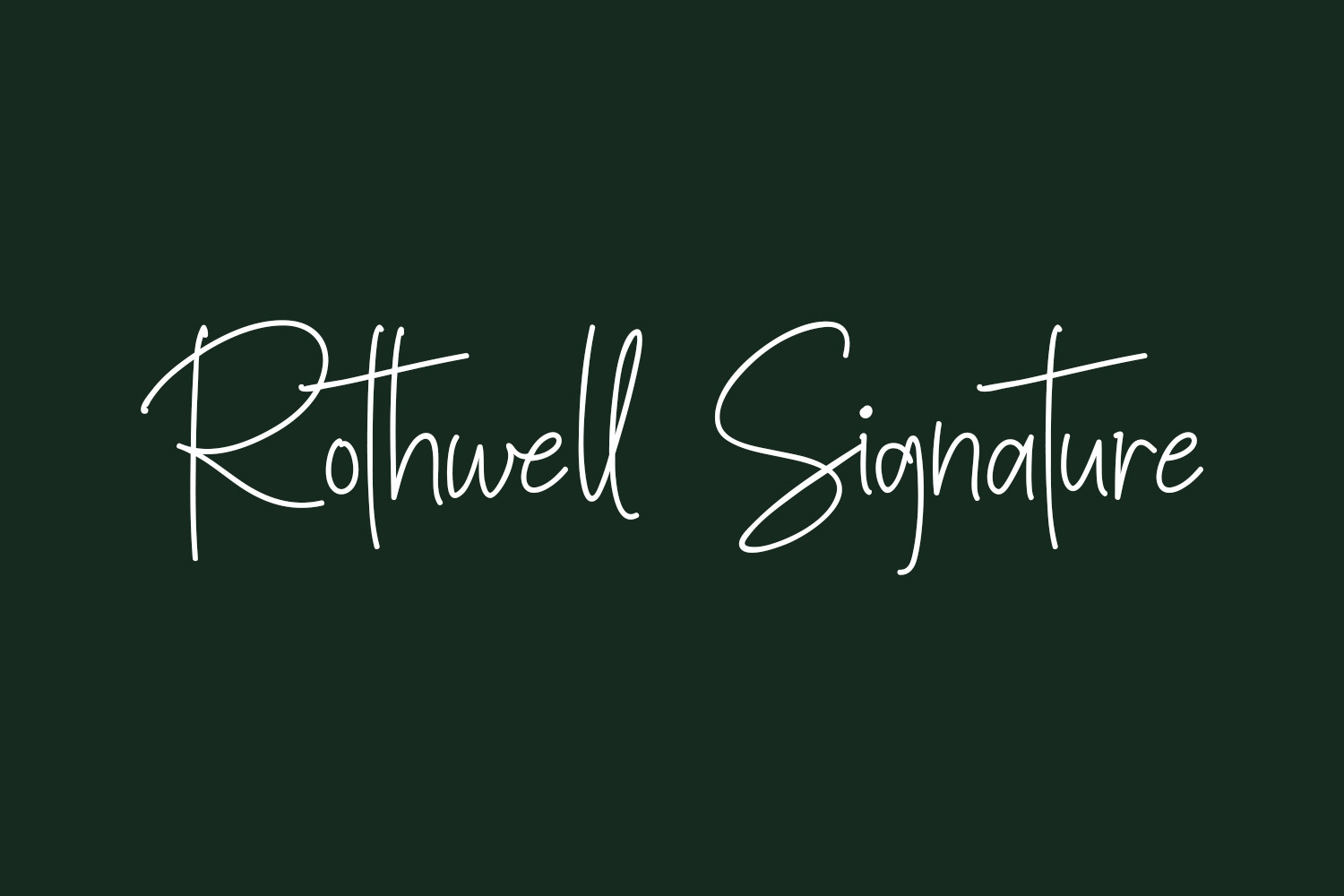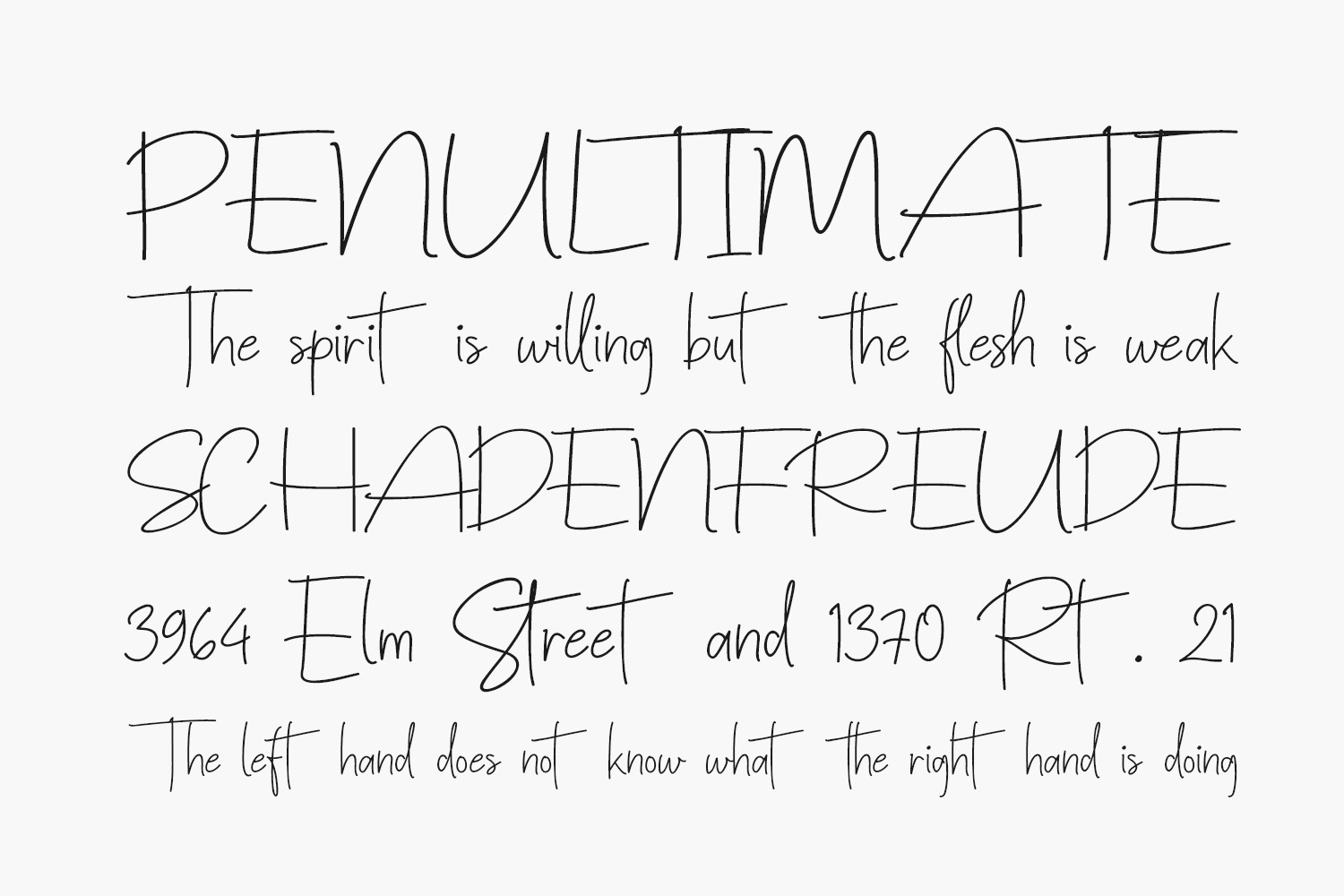
Rothwell Signature Free Font is a lovely and calligraphic font that exudes elegance and class. This font is specially crafted for those who need a beautiful and refreshing look to their designs. Rothwell Signature Free Font was designed by XD Creative and is free for personal use only. Please purchase the full version for commercial use.